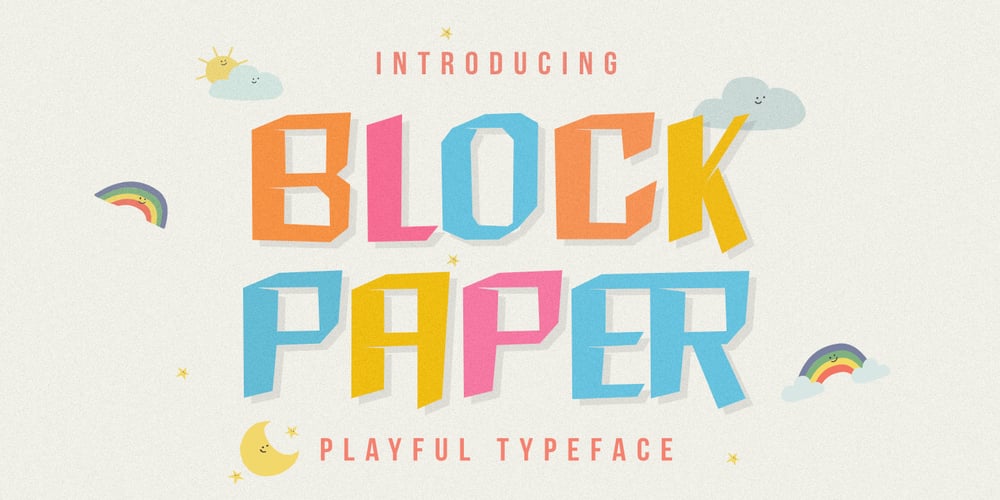
Block Paper Font Family was designed by Toni Dzulham and published by Dumadi. Block Paper contains 1 styles and family package options. Block Paper – Playful Typeface is a square font inspired by squares/cubes. a font specially designed for designers with fun and colorful kids projects.Block Paper is perfect for design, logos, social media, branding, advertising, product design, handwritten quotes, product packaging, headers, posters, merchandise, and other designs.What’s Included :+ Standard glyphs+ Ligature+ Multilingual Accent+ Works on PC & Mac, Simple installationsThis Font Support Languages :Afrikaans, Albanian, Asu, Basque, Bemba, Bena, Breton, Catalan, Chiga, Cornish, Danish, Dutch, English, Estonian, Faroese, Filipino, Finnish, French, Friulian, Galician, German, Gusii, Indonesian, Irish, Italian, Kabuverdianu, Kalenjin, Kinyarwanda, Luo, Luxembourgish, Luyia, Machame, Makhuwa, Meetto, Makonde, Malagasy, Manx, Morisyen, North, Ndebele, Norwegian, Bokmål, Norwegian, Nynorsk, Nyankole, Oromo, Portuguese, Quechua, Romansh, Rombo, Rundi, Rwa, Samburu, Sango, Sangu, Scottish, Gaelic, Sena, Shambala, Shona, Soga, Somali, Spanish, Swahili, Swedish, Swiss, German, Taita, Teso, Uzbek (Latin), Volapük, Vunjo, Zulu.Accessible in Adobe Illustrator, Adobe Photoshop, Adobe InDesign, even work on Microsoft Word. PUA Encoded Characters – Fully accessible without additional design software. Fonts include multilingual support+ Image used: All photographs/pictures/vectors used in the preview are not included, they are intended for illustration purposes only.